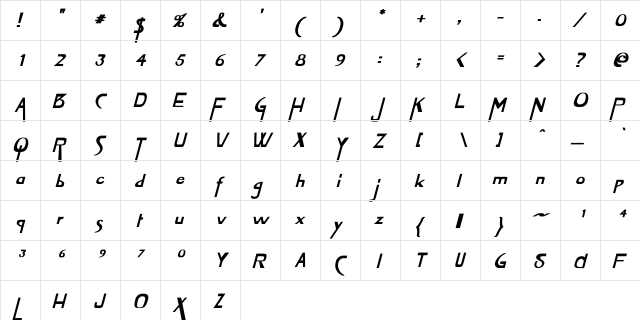
VireoFont Bold Italic Regular
Design Context for VireoFont Bold Italic Typeface
VireoFont Bold Italic takes a measured approach to typography — its balanced proportions and neutral character make it a reliable workhorse for both digital and print work. The dynamic lean of this cut emphasises speed and emphasis in any layout. Its bold stroke weight gives it real presence on the page.
Pro Tip: Try VireoFont Bold Italic for annotation and caption copy alongside an upright companion — the contrast in angle creates a dynamic but ordered typographic system.